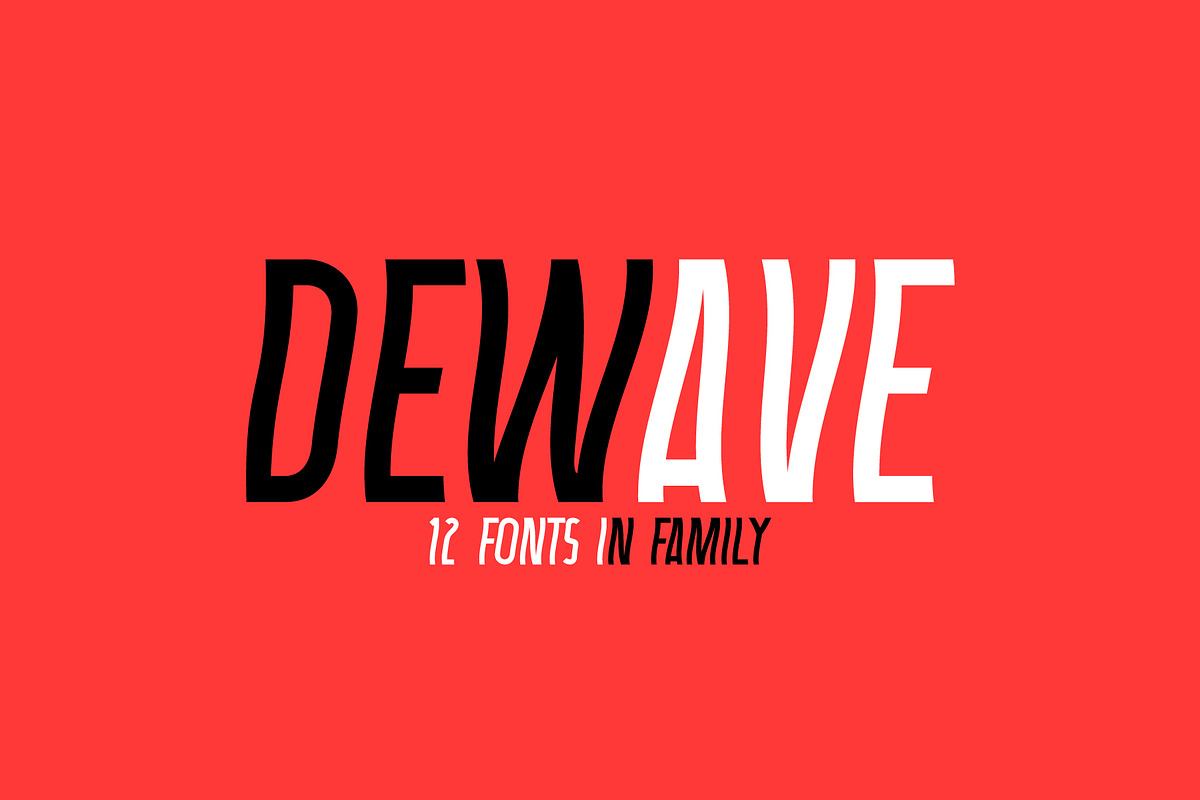
Dewave – Distorted Sans Serif Family Free Download is a futuristic and experimental typeface that breaks the mold of traditional sans-serifs. Featuring warped lines, stretched forms, and glitch-inspired elements, this font family is perfect for sci-fi posters, edgy branding, music visuals, streetwear, and digital artwork that pushes creative boundaries.
The Dewave font family includes multiple styles, giving you flexibility to mix and match clean base versions with distorted variants for bold typographic contrast. Whether you're designing for tech, fashion, or modern art, Dewave adds a distinctive and rebellious visual language to your work. It's free to download for testing, but a commercial license is required for any monetized or professional use.
Push the edge of design with Dewave – Distorted Sans Serif Family Free Download, and bring a warped, cutting-edge aesthetic to your next project. Ideal for designers who love to bend the rules of typography.